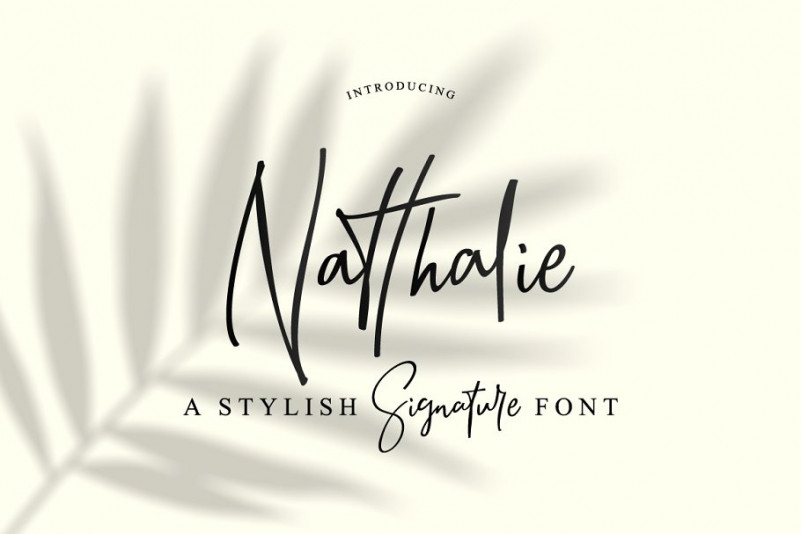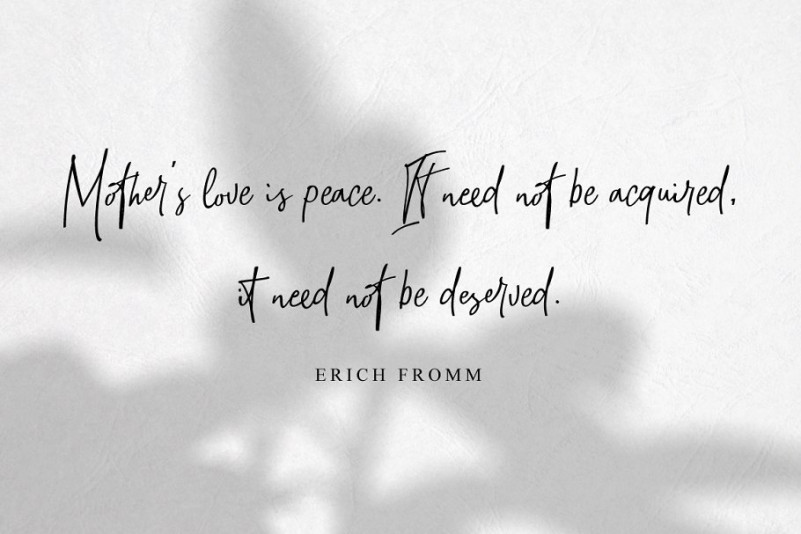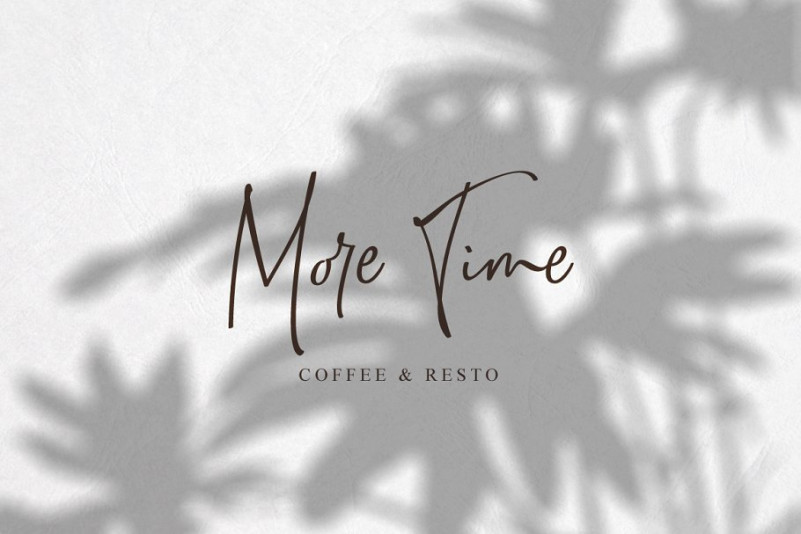
Famous script font. The fluid design features graceful, undulating curves and intricate hand-drawn patterns that evoke a feeling of romance and sophistication. Perfect for wedding invitations, elegant branding and other sophisticated designs.
Designer Name: | Bellinghamtype |